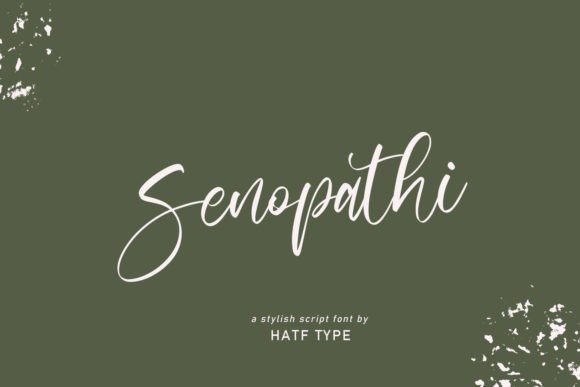
Senopathi Script Font Free
Senopathi Script Font is completely hand-drawn and contain ligatures to perfectly re-create natural handwriting. It’s designed and shared by HaftType. Senopathi feels equally charming and elegant. This stunning handwritten font is a stylish homage to classic calligraphy. It features a varying baseline, smooth lines, gorgeous glyphs and stunning alternates.
Senopathi Script Font is a handwritten font that is perfect for branding, social media headers, product packaging, wedding invites and cards and so on.